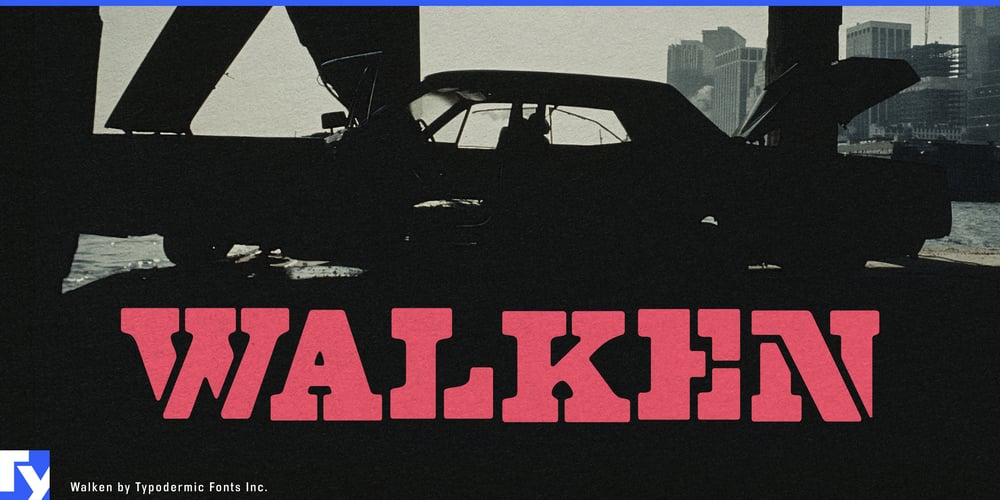
Walken Font Family was designed by Ray Larabie and published by Typodermic. Walken contains 3 styles and family package options. Walken is a typographic powerhouse. This commanding slab serif demands attention with its robust letterforms and sturdy serifs, ready to make your message impossible to ignore. But Walken’s strength lies not only in its muscular build; it’s got finesse too.Imagine a typeface that keeps you on your toes, constantly surprising and delighting. That’s Walken. With its clever OpenType ligatures, it swaps out letter combinations to create an unpredictable, dynamic look. The mix of stencil and non-stencil characters adds another layer of intrigue, giving your text a distinct personality that sets it apart from the crowd. Not content with a one-size-fits-all approach? Walken flexes its muscles with three forceful options: Clean, Crisp, and Hard. Whether you’re aiming for sleek professionalism or rugged authenticity, Walken adapts to your vision without breaking a sweat.This typographic titan doesn’t just make a statement—it shouts it from the rooftops in a multitude of tongues. Walken struts confidently across a vast array of Latin-based European writing systems. From the fjords of Iceland to the savannas of Swahili-speaking Africa, Walken’s got you covered. It effortlessly handles languages as diverse as Luxembourgish, Maori, and Quechua, ensuring your message resonates across continents.So, are you ready to give your words some serious muscle? Don’t let your designs fade into the background. Choose Walken, and watch as it commands the stage, grabs attention, and refuses to let go. Your message deserves nothing less than this typographic tour de force.